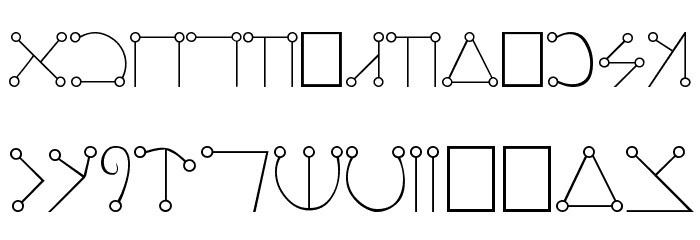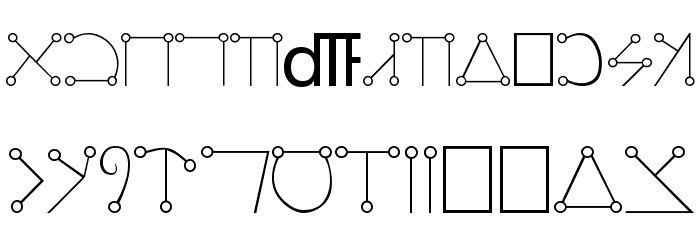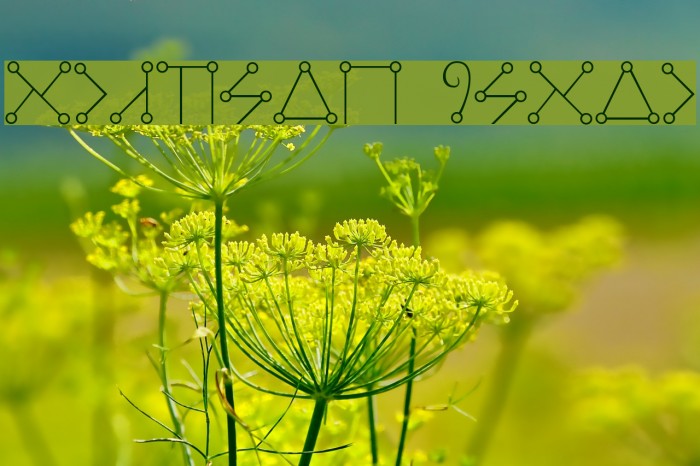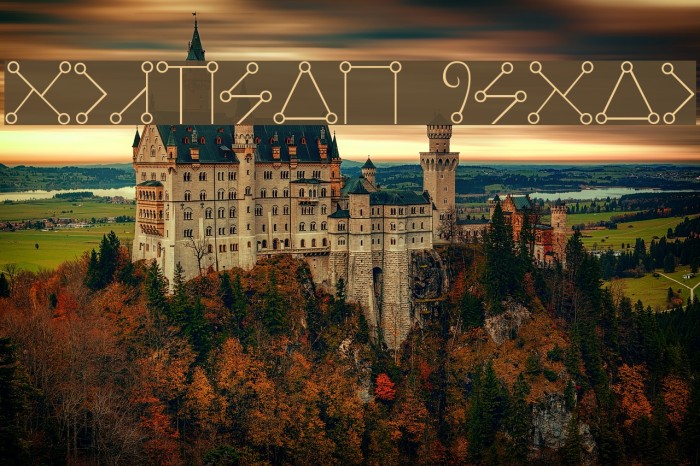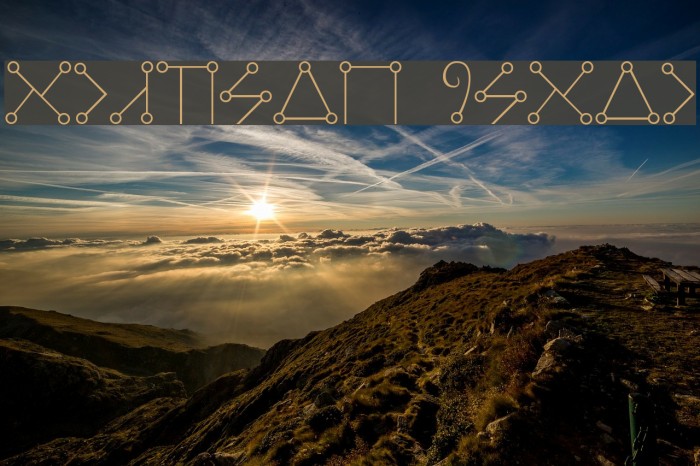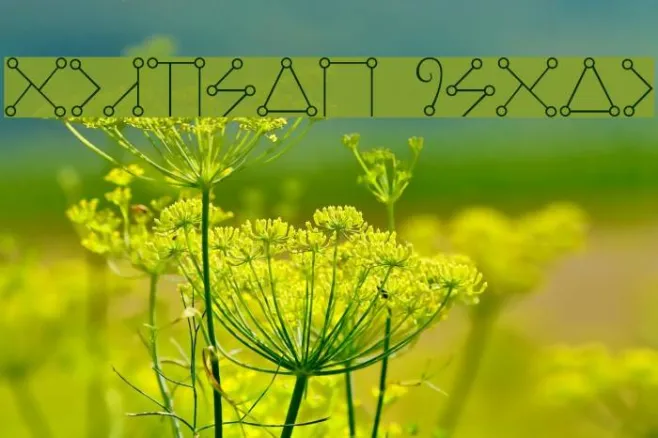
Angelic Plain Font
This font features a unique and decorative style, characterized by its use of geometric shapes and lines connected by small circles. The design is highly abstract, resembling a series of interconnected symbols rather than traditional alphanumeric characters. Each character is distinct, with a playful yet structured appearance, making it suitable for creative and artistic projects. The font's intricate design elements suggest a modern and avant-garde aesthetic, ideal for use in contexts where a futuristic or unconventional look is desired.
A decorative font with geometric shapes and lines, offering a modern and abstract style.
- Proposed Projects: Ideal for creative projects such as album covers, posters, or digital artwork that require a unique and artistic touch.
- Overall Style: Modern, Avant-garde
- Use Case: Logos, Artistic designs, Posters